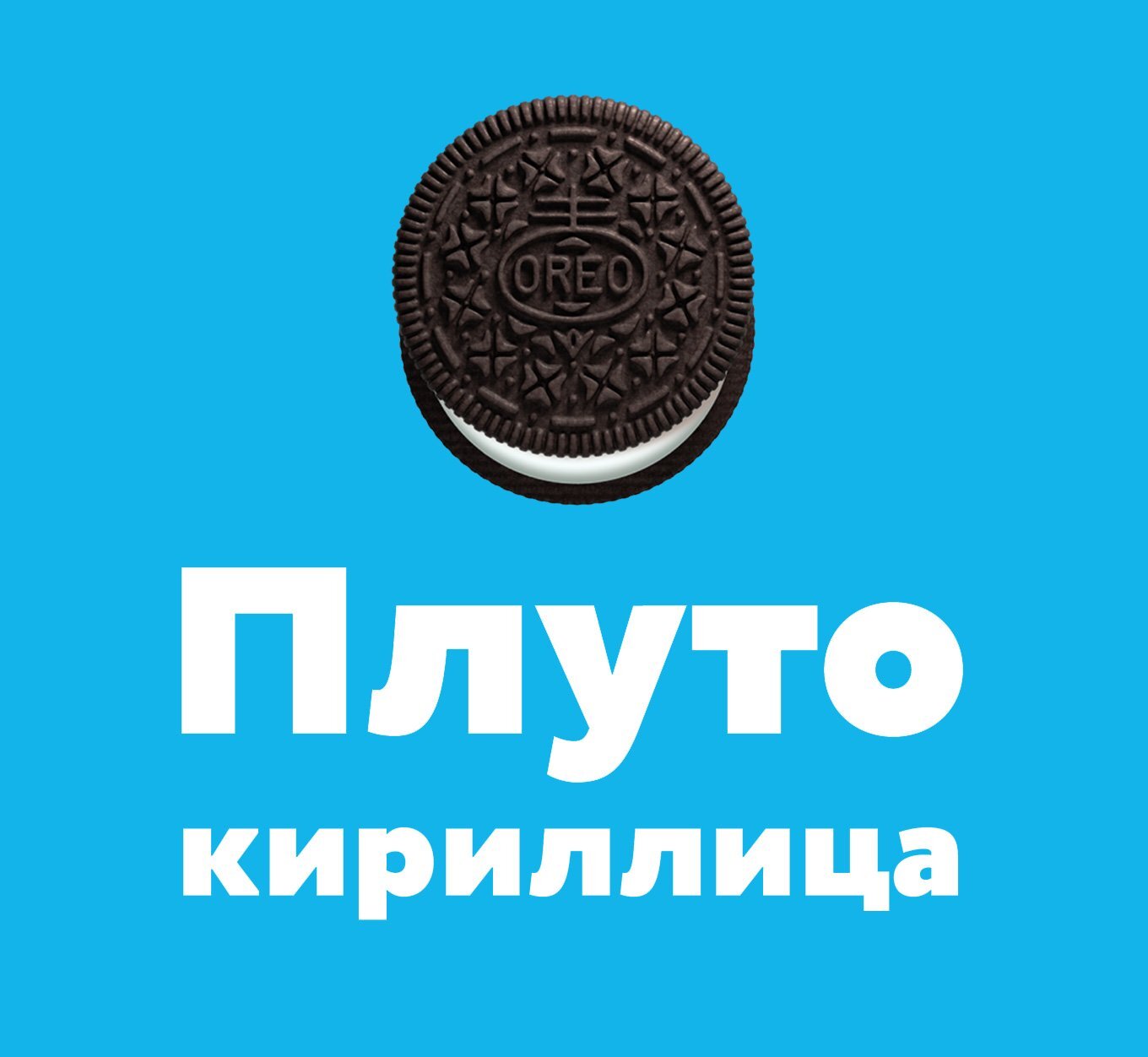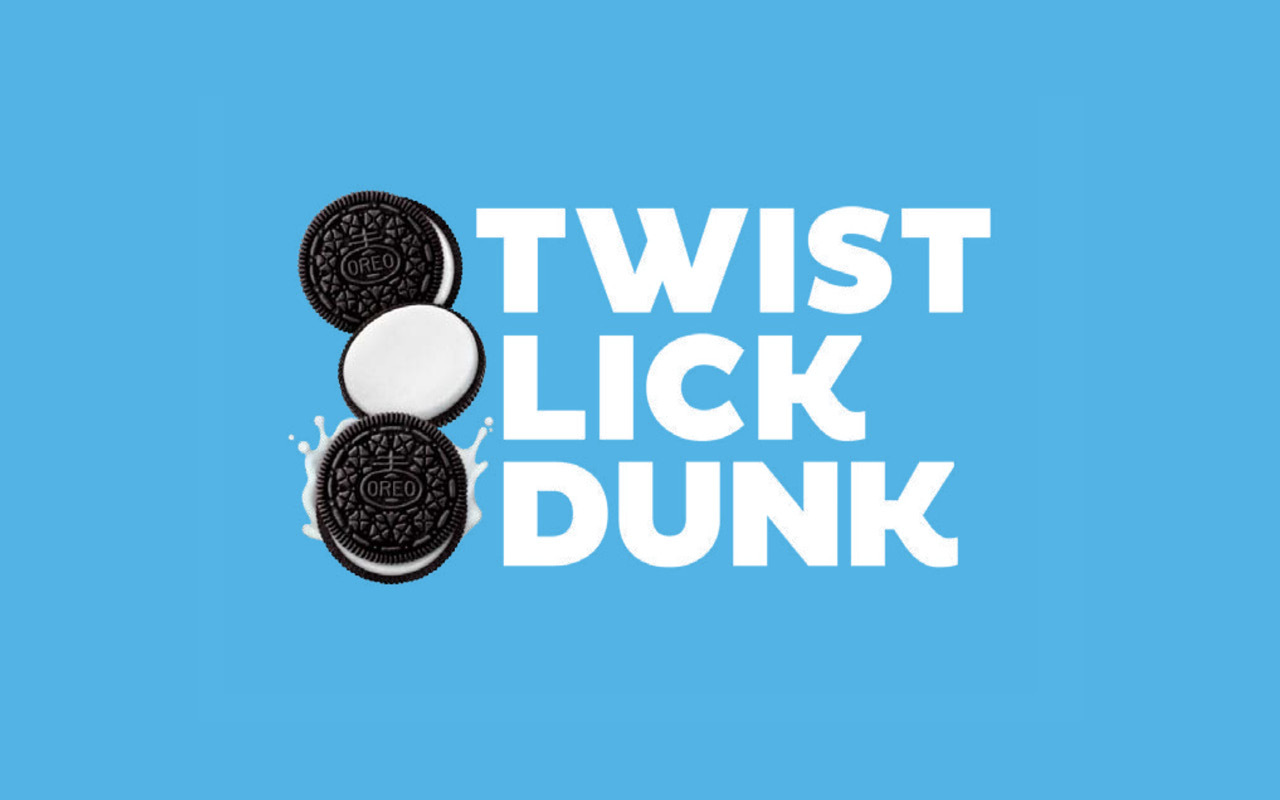
Pluto Oreo
Pluto Oreo Stage
About the Pluto OREO fonts
The Pluto Oreo fonts were especially designed for the OREO brand. The Font Package contains three fonts:
- Pluto Oreo Black
- Pluto Sans Condensed Reguar
- Pluto Sans Condensed Regular Italic.
The Pluto Oreo fonts were especially designed for the OREO brand. The Font Package contains three fonts: Pluto Oreo Black, Pluto Sans Condensed Reguar & Pluto Sans Condensed Regular Italic.
Tasty Type
The Pluto Oreo custom font reflects our brand personality. It is friendly and quirky. It’s creation borrows historical Wordmark details, as well as the cookie shape.
-> Pluto Oreo is our headline font. Our typeface is friendly, flexible and easy to read. Special filled-in “O” characters are available through the Glyph palettes within Illustrator and InDesign.
-> Pluto Sans Condensed Regular & Italic: This lightweight, dynamic typeface is used for body and descriptor type for packaging.
Language Support
The fonts contain more than 680 characters supporting nearly all Latin based languages, as well as Cyrillic languages.